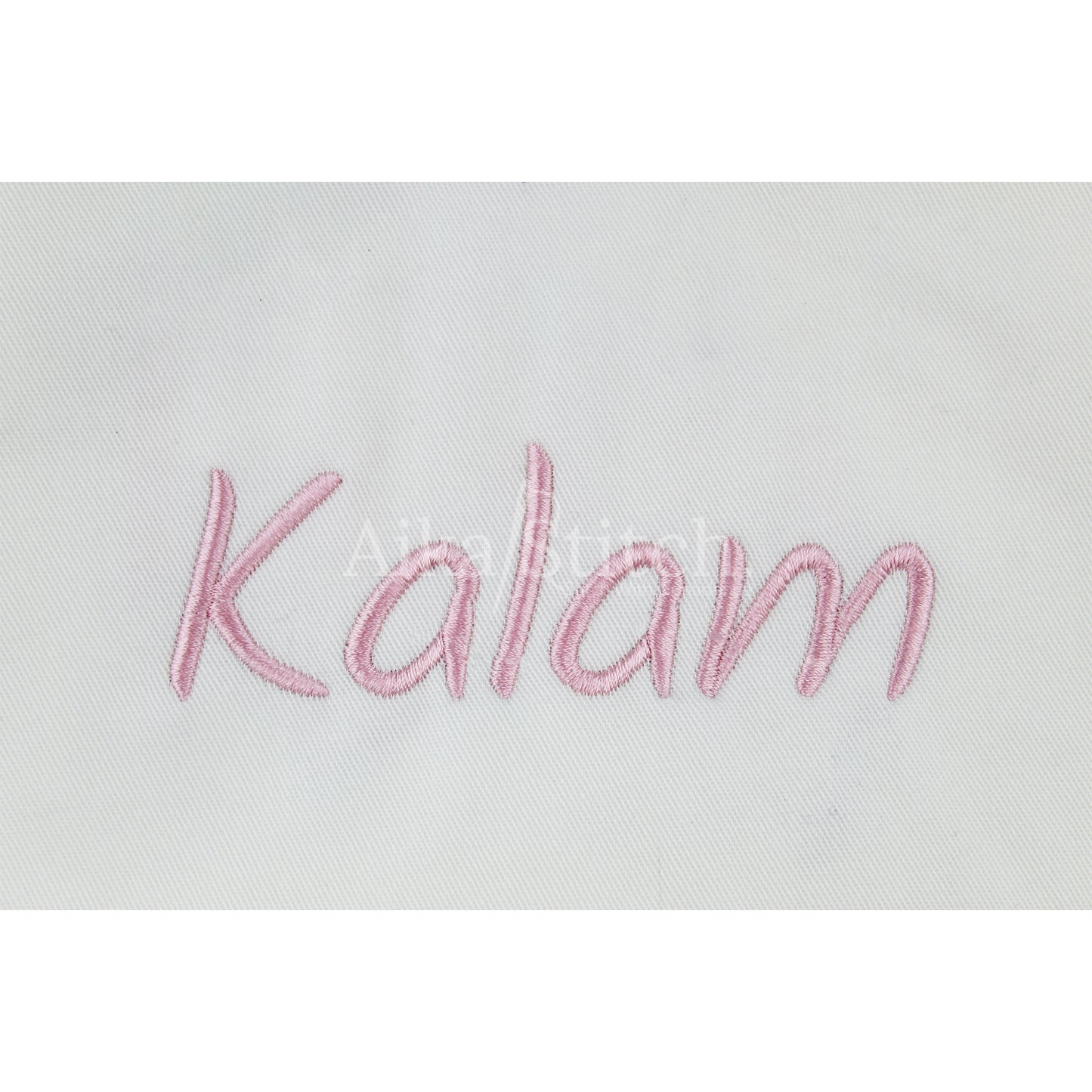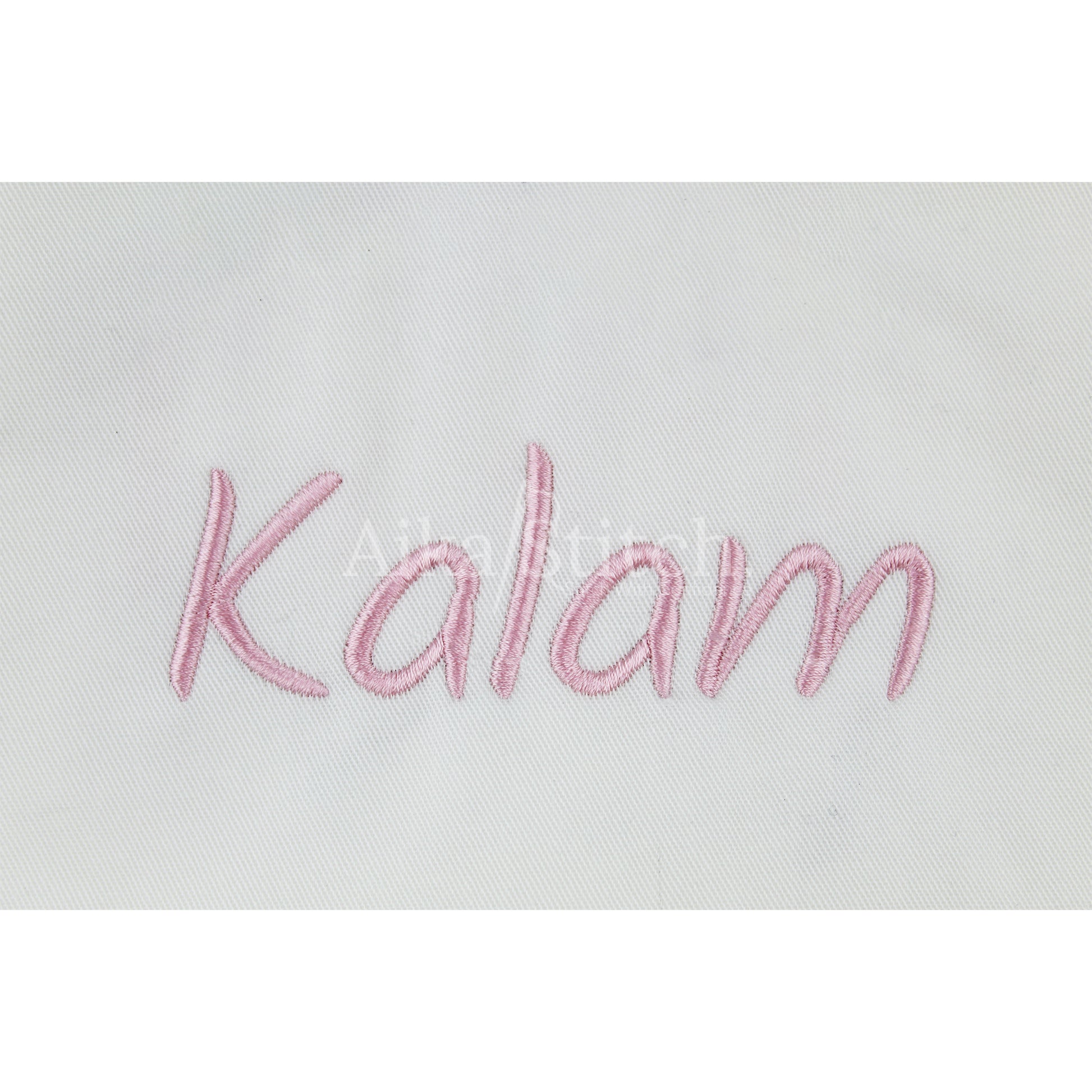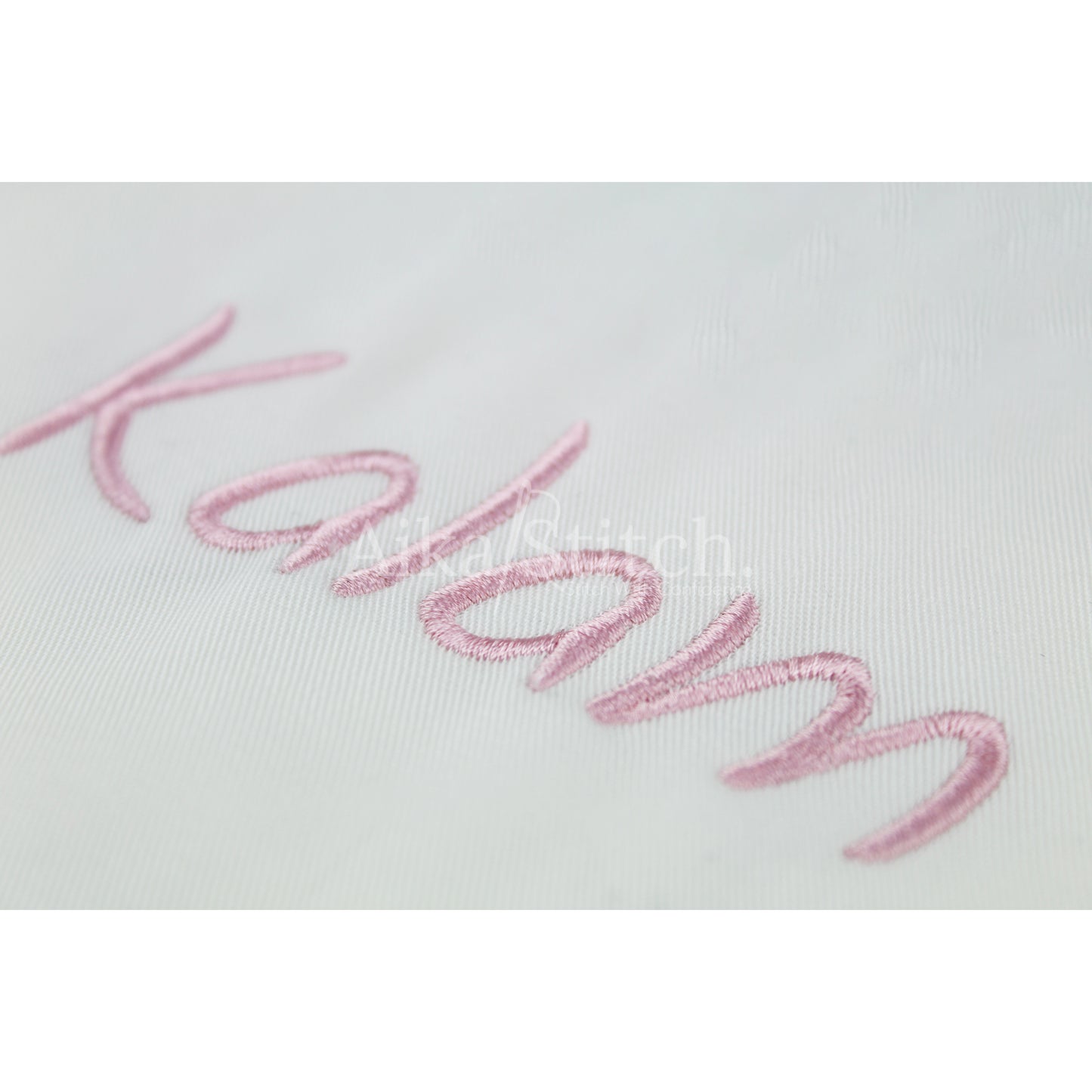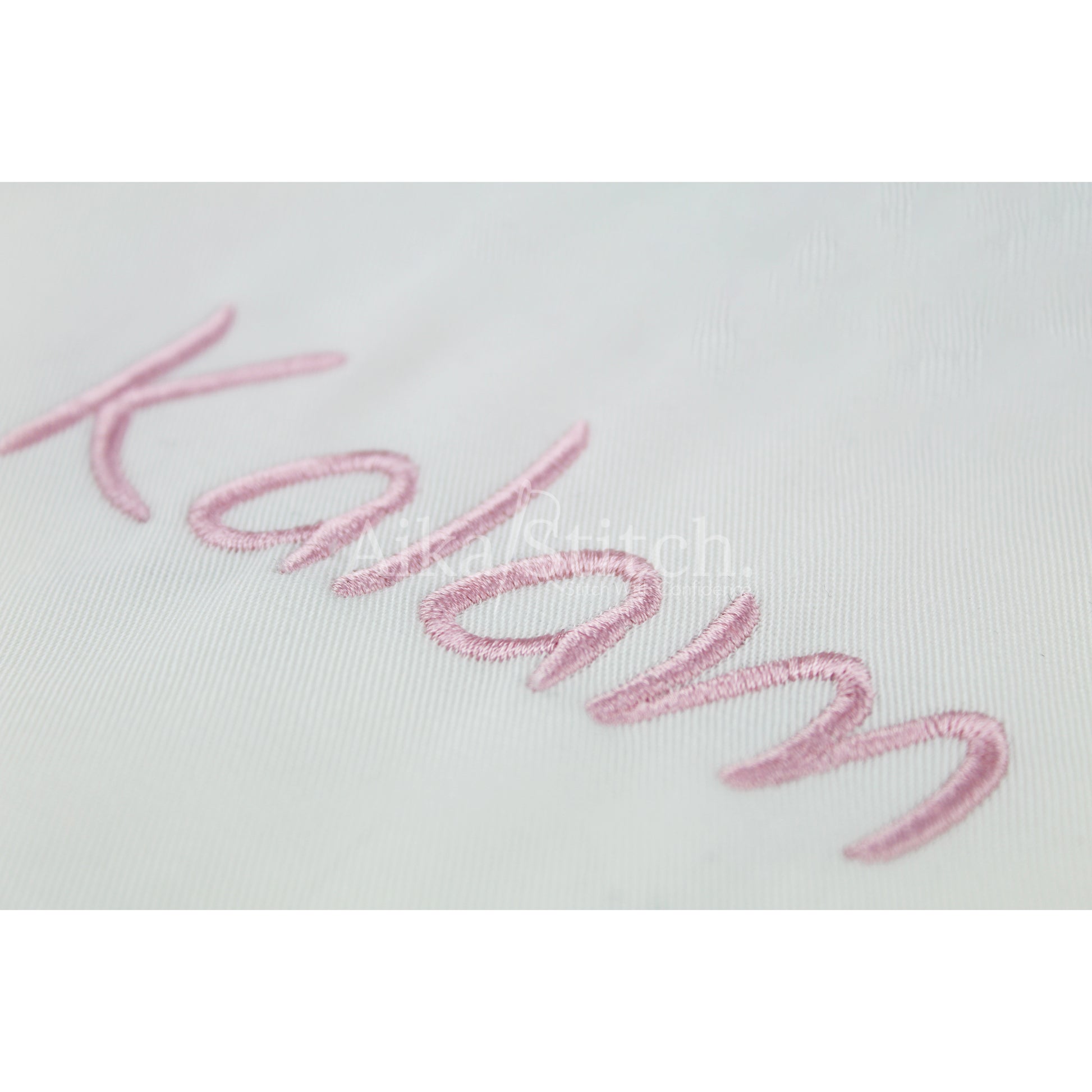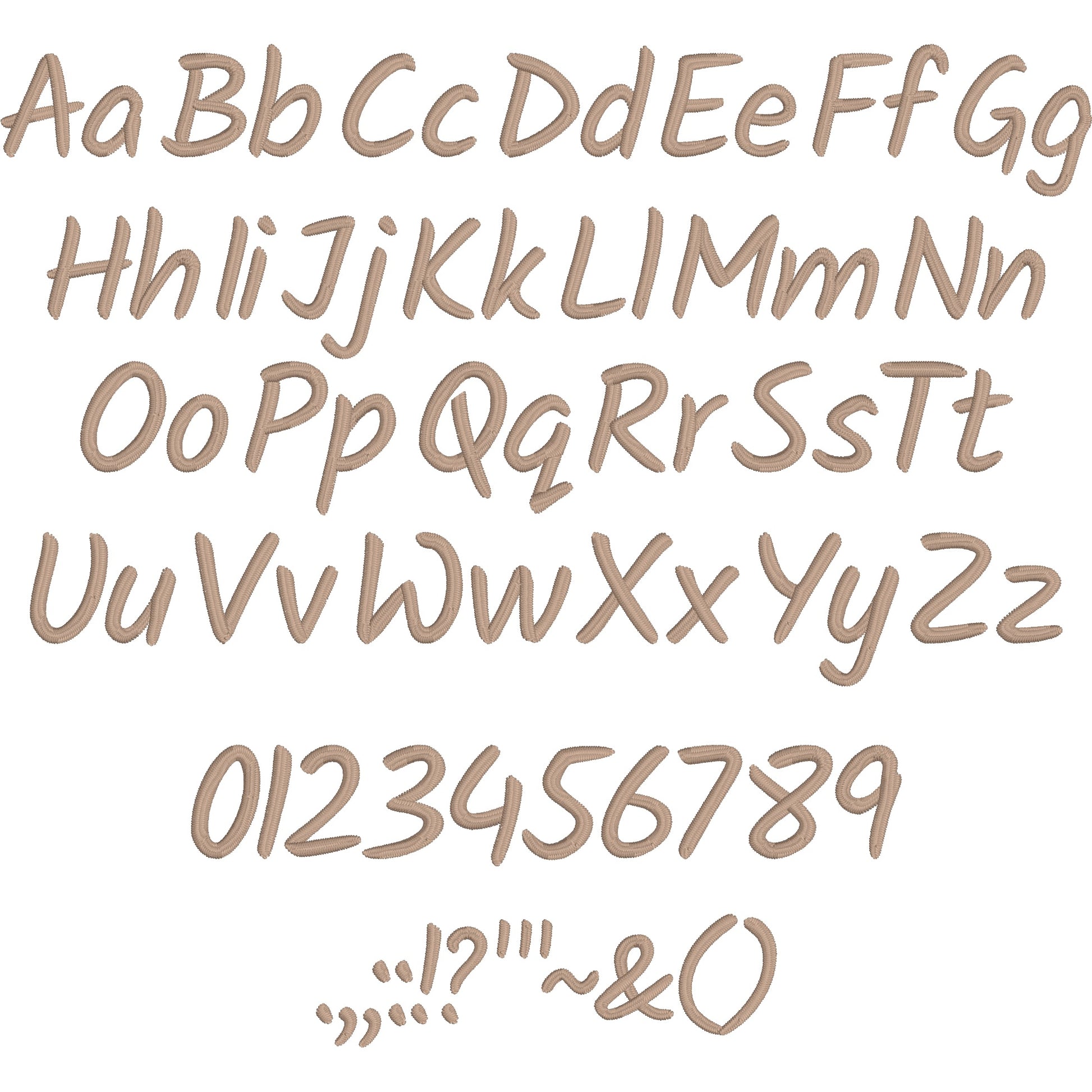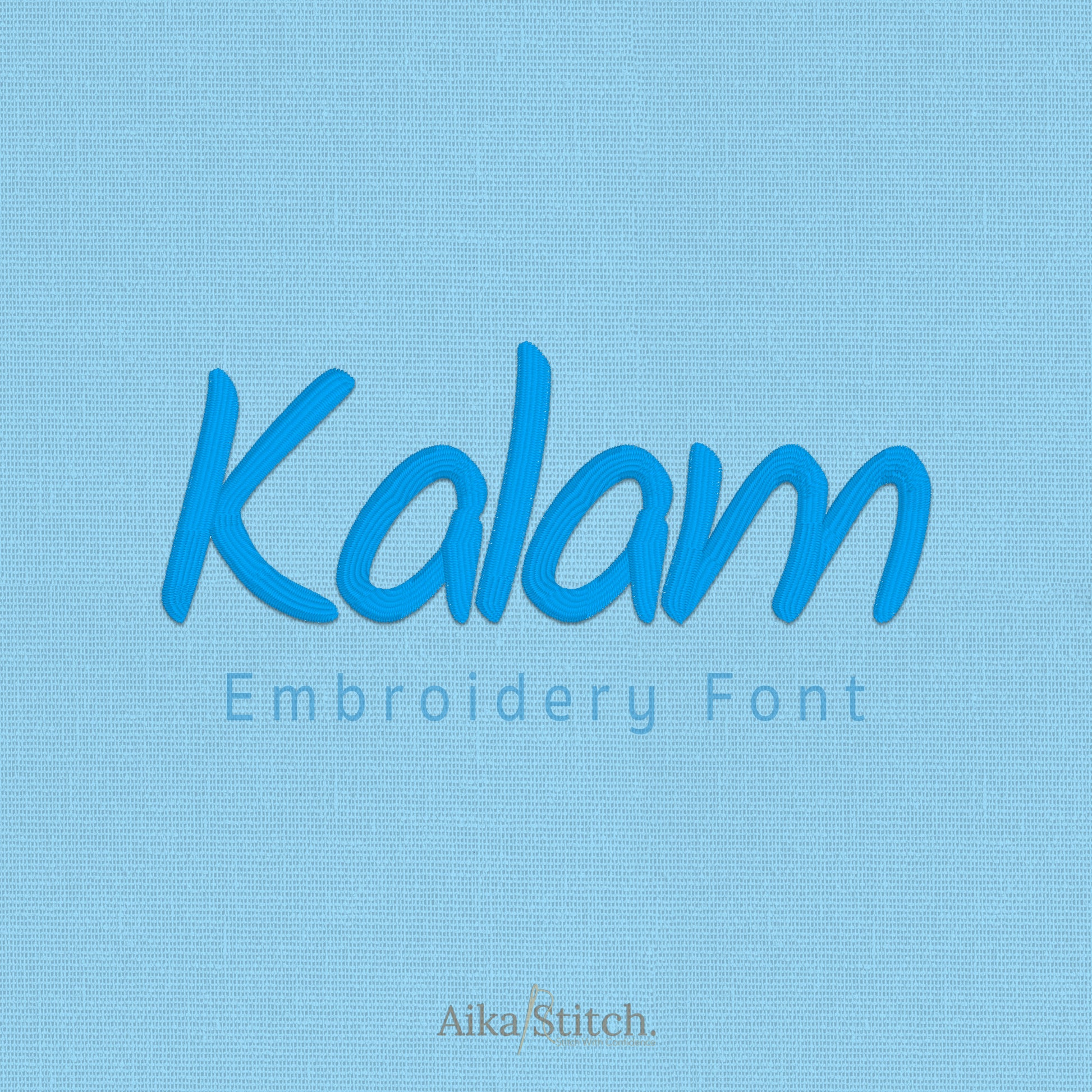
Kalam Script Cursive Embroidery Font
Kalam is a Script Cursive machine embroidery font featuring beautiful satin stitch lettering. Perfect for shirts, towels, hats, baby gifts, monograms, and small business embroidery projects.